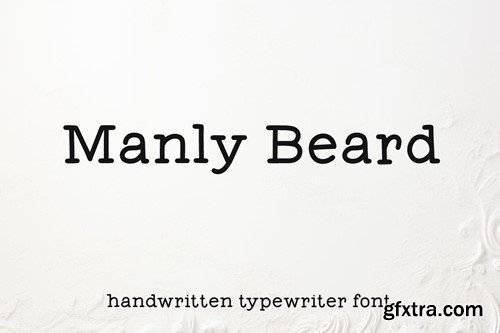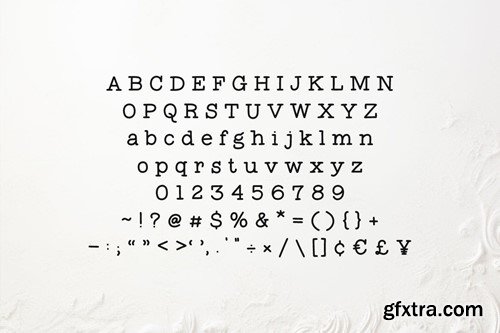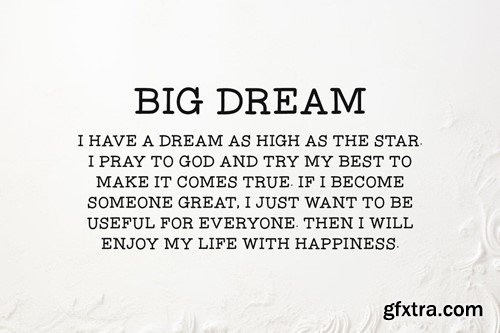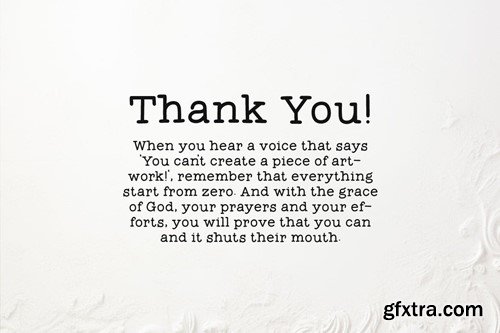
男性胡须 - 手工打字机字体 PKYMVJG
Introducing Manly Beard , the typewriter font. Typewriter font is a timeless and iconic typeface, seamlessly bridges the realms of nostalgia and functionality. Inspired by the mechanical simplicity of traditional typewriters, this font exudes a distinct charm that harks back to an era when the written word was synonymous with the rhythmic clatter of keys striking paper. Characterized by monospacing, each letter and symbol occupies the same amount of horizontal space, mirroring the uniformity of characters produced by the typewriter's fixed-width mechanical arms. The result is a text that maintains a deliberate and organized appearance, evoking a sense of order and precision. We're honored and proud if Manly Beard can be the part of your special masterpiece. Thankyou! :) The zip file is include: